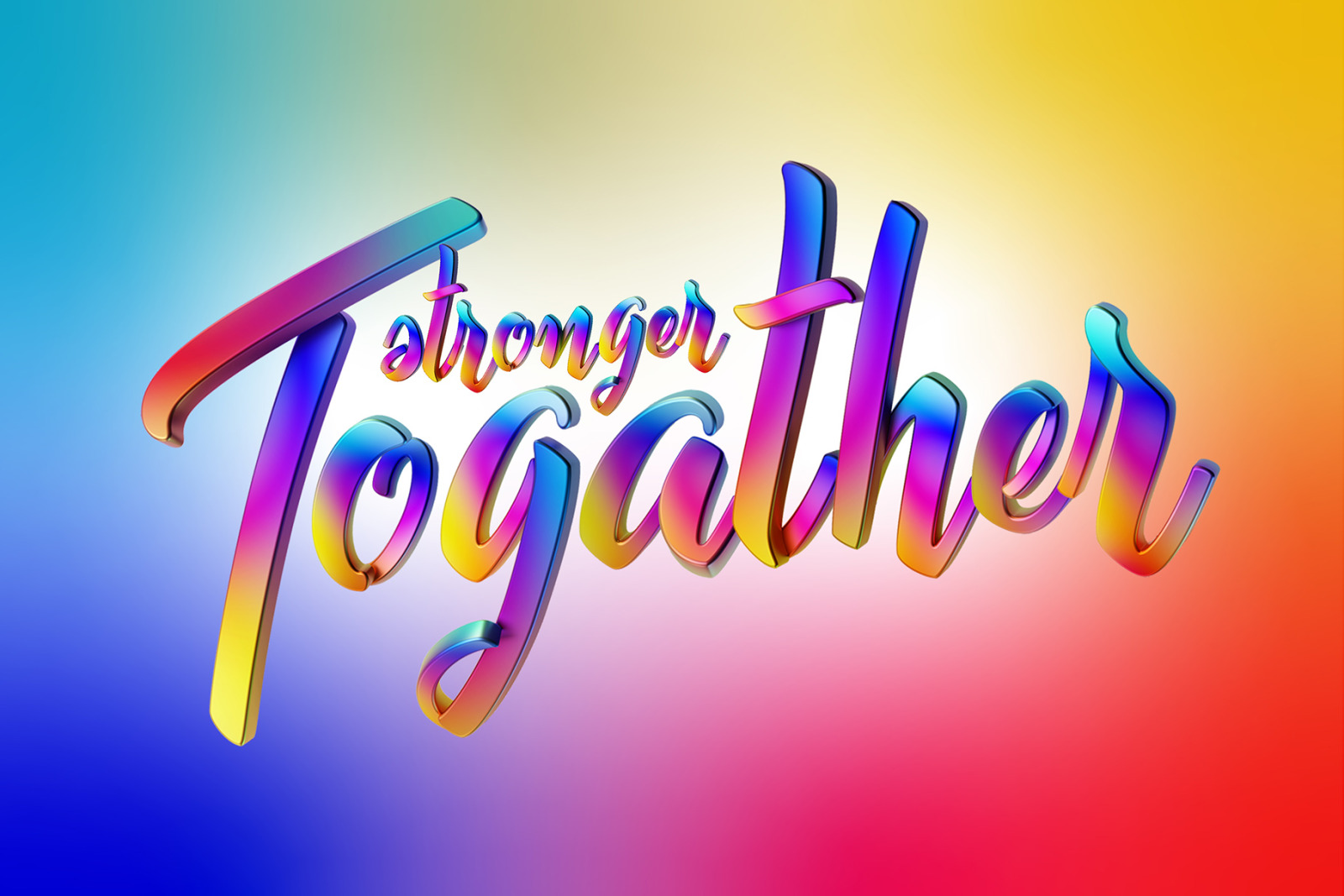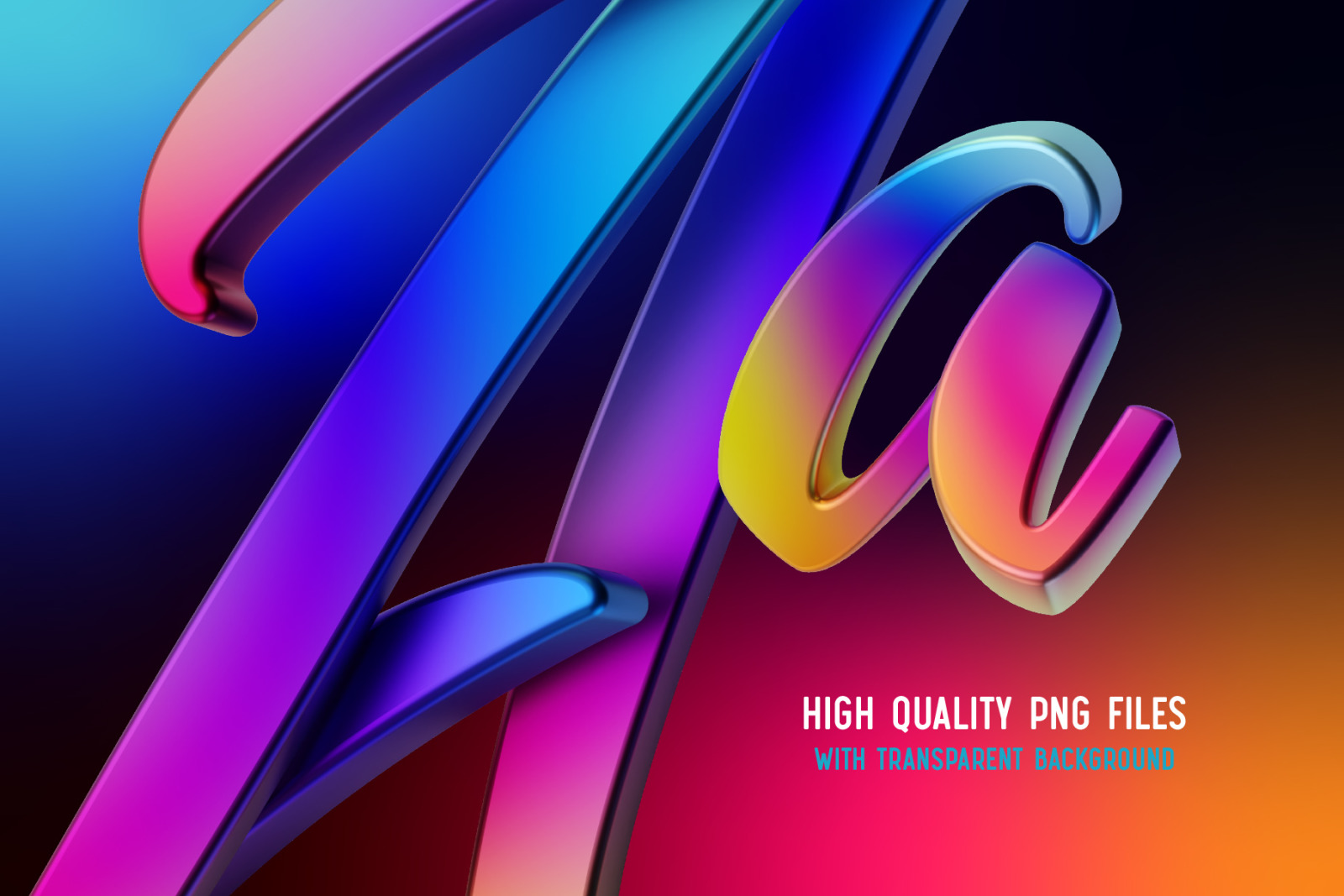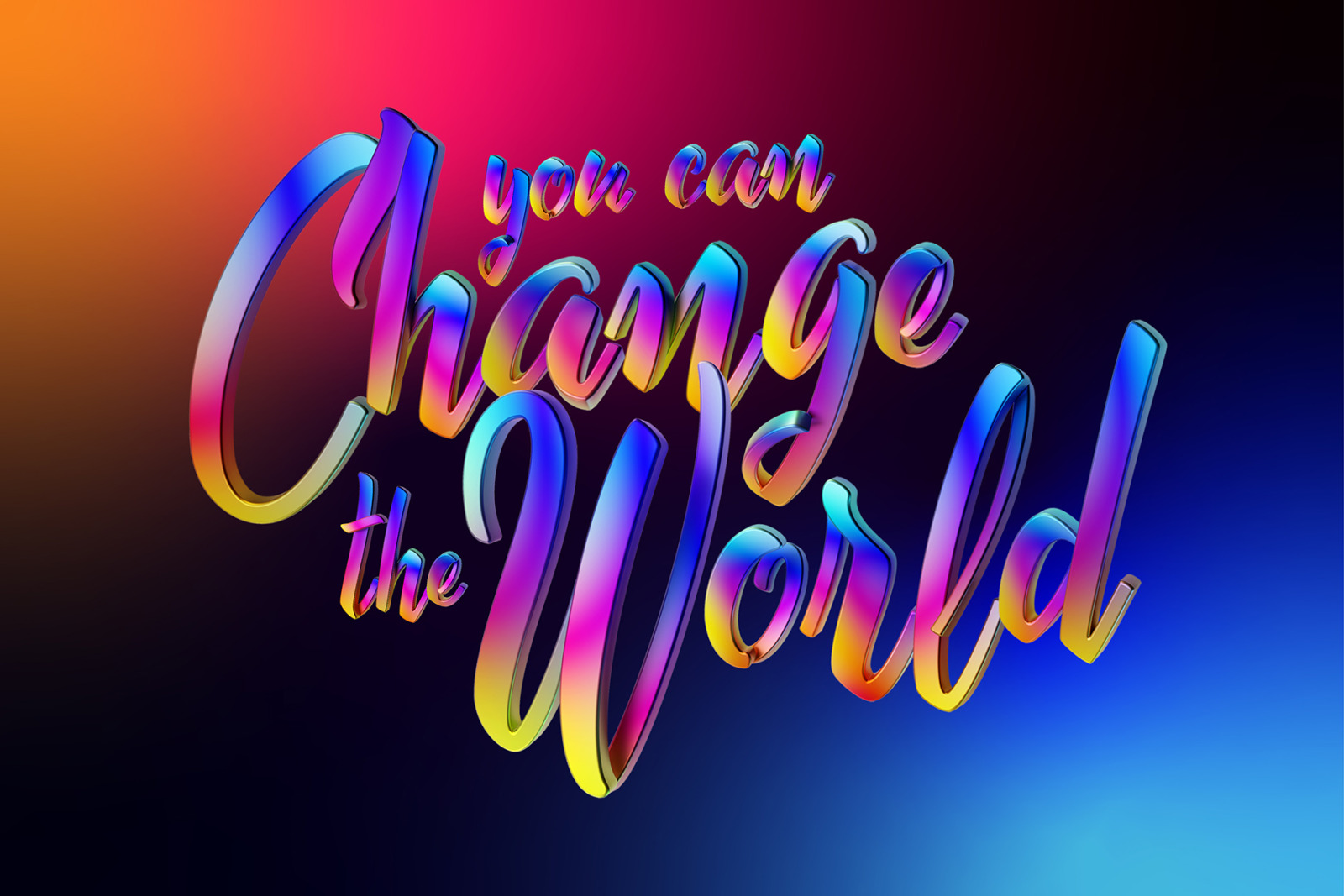
Diversity – Color Bitmap Font
Hello! Presenting a colorfull font set Diversity. It's a 3d rendered high quality typeface based on a smooth callighraphic script. First of all it's a color bitmap OpenType-SVG font that can be used as a usual OTF font. Also a set of full resolution PNG files with transparent background is included.